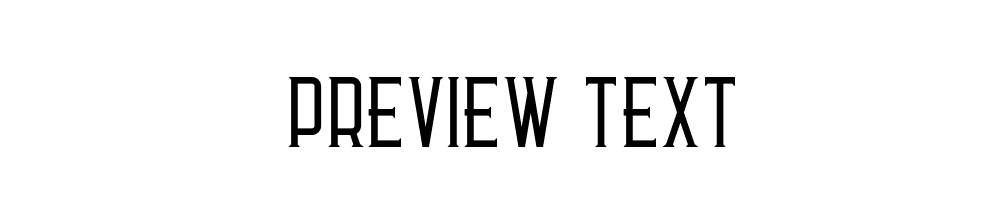
The “o.ttf” font is a modern and expressive typeface designed with a sleek and elegant structure that conveys a sense of sophistication. Its aperture is wide, allowing for excellent legibility at various sizes, while the apexes are sharp and well-defined. The arcs and stems are carefully crafted, giving the letters a balanced and polished look. The font features bilateral serifs that add a touch of classic elegance, and the bowls are perfectly rounded for a smooth and flowing appearance. The counters are open, providing a light and airy feel to the overall design. The font also includes subtle brackets and finials that give it a touch of flair and sophistication. The joints and links are neat and well-connected, creating a cohesive and harmonious look throughout the text. Overall, the “o.ttf” font exudes a sense of seriousness and friendliness, making it a versatile choice for a wide range of design projects.
The “o.ttf” font falls under the categories of elegant and rugged, combining a sleek and sophisticated design with a touch of boldness. It balances classic elements with a modern twist, making it suitable for both traditional and contemporary designs. The font’s neutral and expressive qualities make it a great choice for projects that require a versatile and eye-catching typeface. Its serious yet friendly appearance make it suitable for a wide range of applications, from corporate branding to editorial design. The “o.ttf” font’s elegant and rugged characteristics make it a standout choice for designers looking to make a statement with their typography.
The “o.ttf” font strikes a perfect balance between cold and warm, adding a touch of sophistication and elegance to any design project. Its technical and organic elements work together harmoniously, creating a unique and versatile typeface that can be used in a variety of contexts. The font’s classic and progressive features make it suitable for both traditional and modern designs, offering a timeless quality that is sure to stand the test of time. The “o.ttf” font’s familiar yet daring aesthetic sets it apart from other typefaces, making it a bold and eye-catching choice for designers looking to make a statement with their typography. Its loud yet discreet characteristics make it a versatile option for projects that require a standout typeface without being overly flashy. Overall, the “o.ttf” font is a sophisticated and versatile choice that is sure to elevate any design project with its unique and elegant qualities.